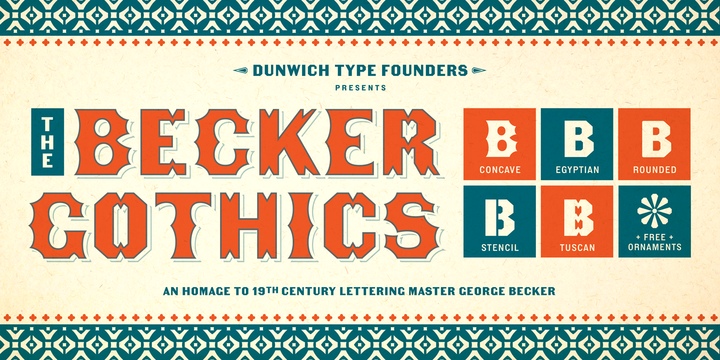
Becker Gothics Font
Becker Gothics Font is perfect for architectural firm branding, industrial design presentations, engineering company logos, construction equipment labeling, mechanical manufacturing signage, and technical blueprint documentation. This robust typeface works exceptionally well in steel fabrication branding, heavy machinery catalogs, and precision engineering communications.
What makes Becker Gothics Font so exciting is its industrial strength character that embodies the precision and reliability of German engineering excellence. The font features bold, condensed letterforms with sharp angles and mechanical precision that create immediate authority and technical credibility. Its industrial aesthetic demonstrates exceptional durability and functionality, making it ideal for brands seeking to convey engineering excellence, structural integrity, and uncompromising quality standards.
Becker Gothics Font comes in multiple weight variations including Light, Regular, Medium, Bold, and Black versions. The font family also includes condensed and extended widths, technical symbols, and engineering-inspired alternates that enhance industrial functionality and provide extensive creative possibilities for technical design applications.
This formidable typeface brings German engineering precision into contemporary industrial design projects, offering designers a powerful tool for creating authoritative technical identities. The Becker Gothics Font Free Download provides an excellent opportunity to explore its industrial character and engineering applications before making a purchase decision. Whether you're designing for manufacturing companies, architectural firms, or construction enterprises, this font delivers unmatched technical authority.
The font's robust construction ensures excellent legibility across challenging industrial environments, from large-scale facility signage to detailed technical specifications. Professional designers appreciate its comprehensive character support and specialized technical features that maintain clarity under demanding professional conditions.
Becker Gothics Font has established itself as the preferred choice among creative professionals working with industrial and engineering brands. Its ability to convey technical expertise and industrial strength makes it an invaluable asset for companies seeking to establish credible, professional identities in demanding technical markets.